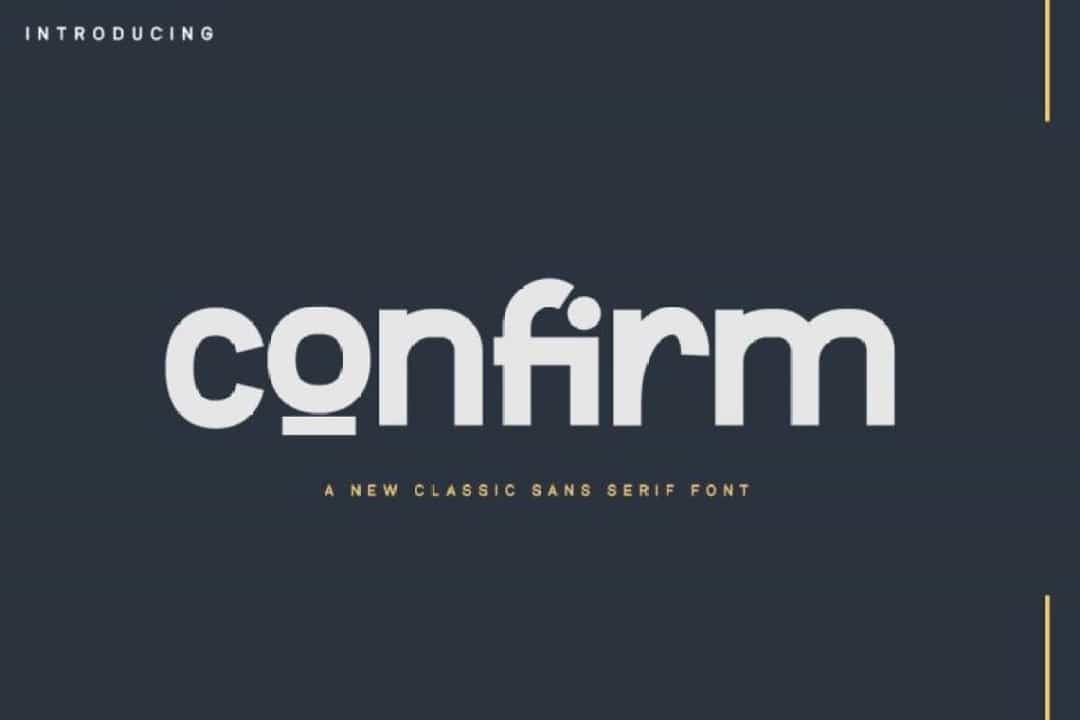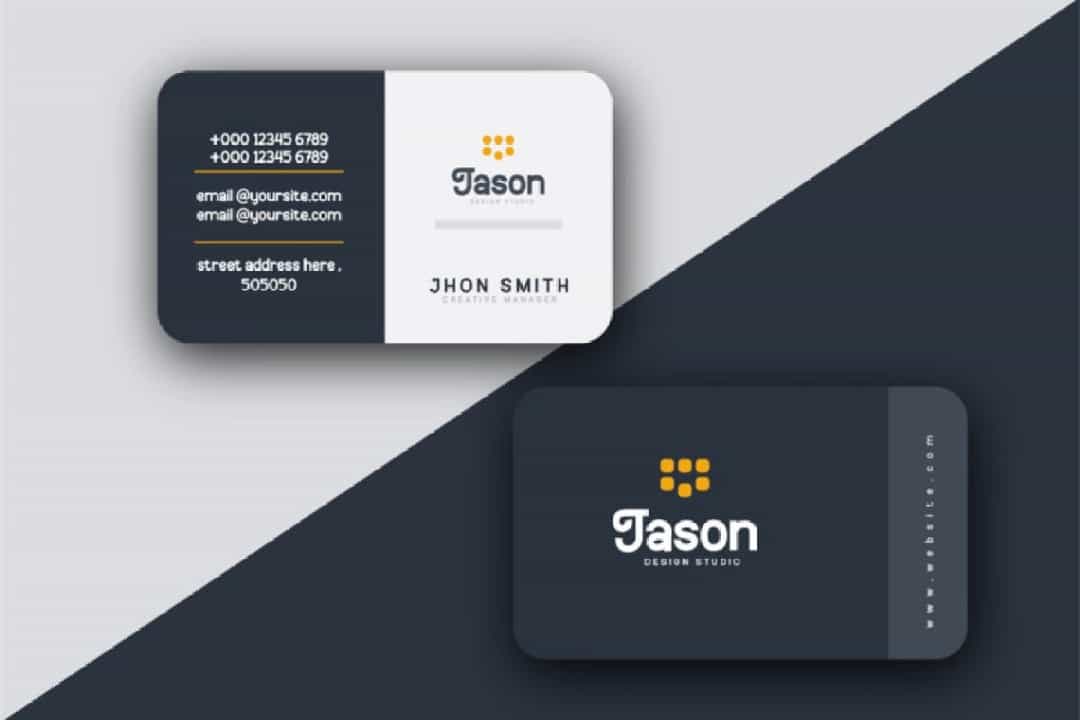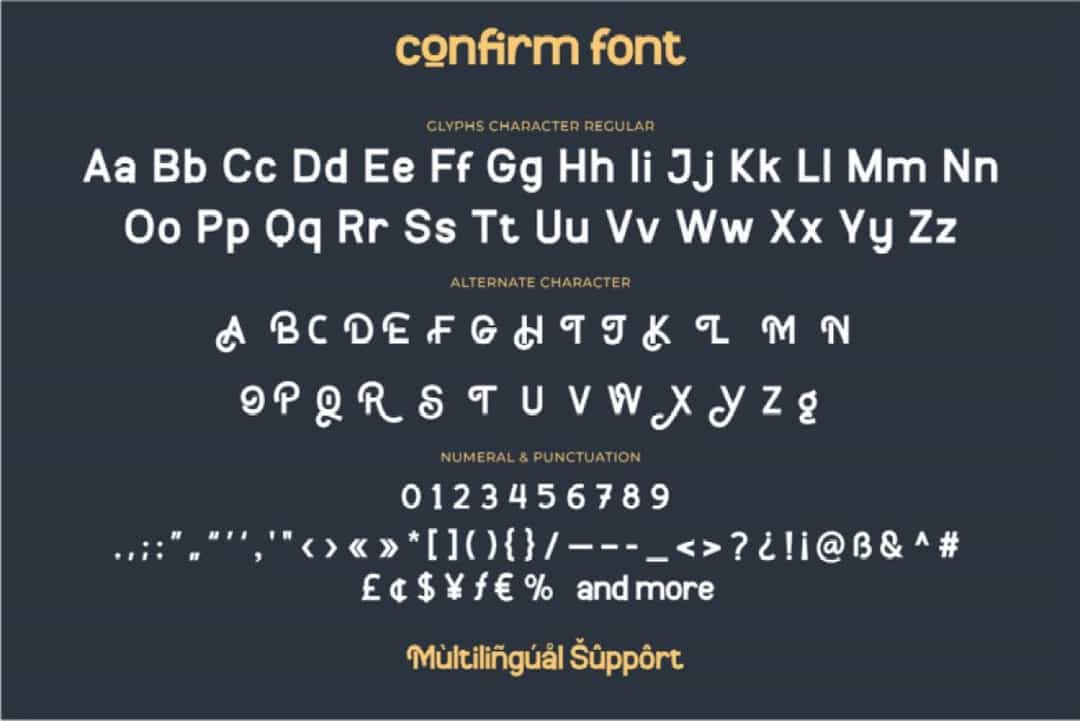
Discover Confirm Font, part of the Sans Serif Basic Personal collection—a versatile and unique font perfect for adding a personal touch to your projects. Download it for free and enjoy crafting designs with style, from invitations to social media posts. This font is available exclusively for personal use, giving you the freedom to create without limits. Unlock your creativity with Confirm Font today!
Confirm stands out by having different characters per letter especially the upper case letters. It was developed in response to the current need for new designs and different characters and sizes. Using words or phrases to type in this font will make your words and phrases look more luxurious and elegant and there are many letters available as substitutes when typing, which also gives the feel of luxury and elegance one desires when using Confirm.